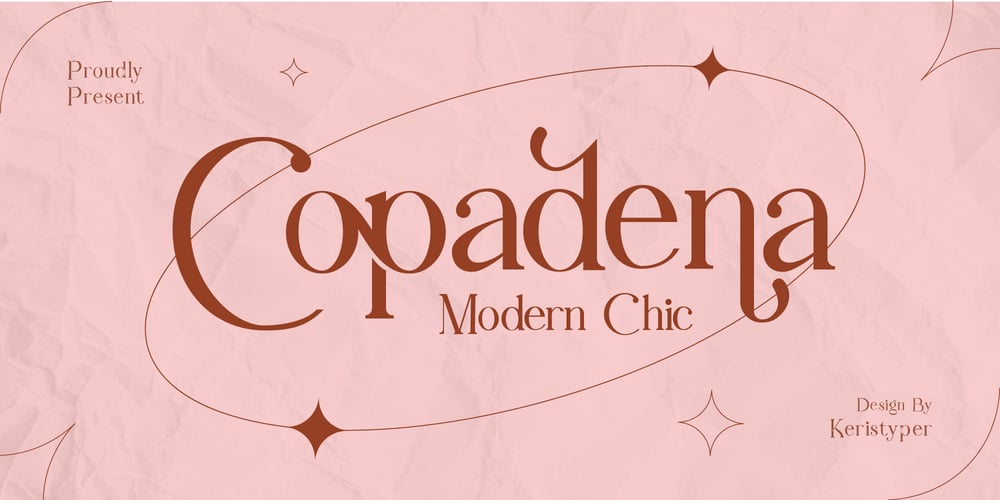
Copadena Font Family was designed by Tezar Tantular and published by Keristyper Studio. Copadena contains 1 styles and family package options. Copadena is a stylish font that is a Modern – Chic, it’s an elegant and unique font. This font is good for logo design, Social media, Movie Titles, Books Titles, short text even long text letters, and good for your secondary text font with sans or serif.**Featured:*** Standard Uppercase & Lowercase* Numeral & Punctuation* Multilingual : ä ö ü Ä Ö Ü ß ¿ ¡* Alternate & Ligature* PUA encodedWe recommend programs that support the OpenType feature and the Glyphs panel such as Adobe applications or Corel Draw. so you can use all the variations of the glyphs.Hope you enjoy our fonts!